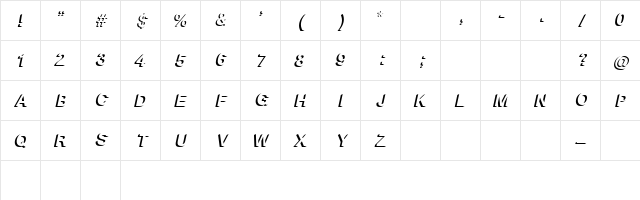
Block Shadow Bold Italic
Designer: Greg Hatch
Design Context for Block Shadow
Block Shadow is built around its visual character rather than neutral utility - its distinctive forms are designed to make an impression at display sizes. The slanted form adds forward momentum and visual energy. Its bold stroke weight gives it real presence on the page.
Font Pairing: Pair with a clean neutral sans-serif for body copy to let Block Shadow's character lead without overwhelming the composition.
Pro Tip: Use Block Shadow exclusively at display sizes - it was designed to be seen, not read at length. Let a neutral companion handle body copy.